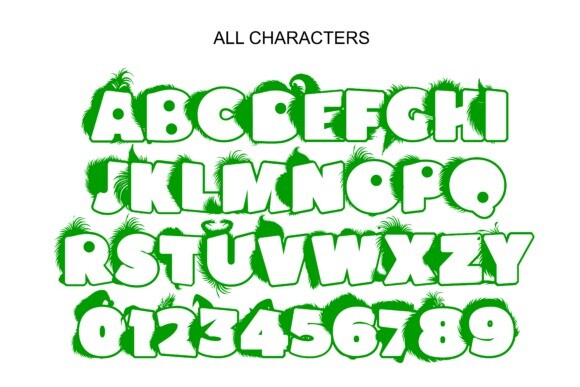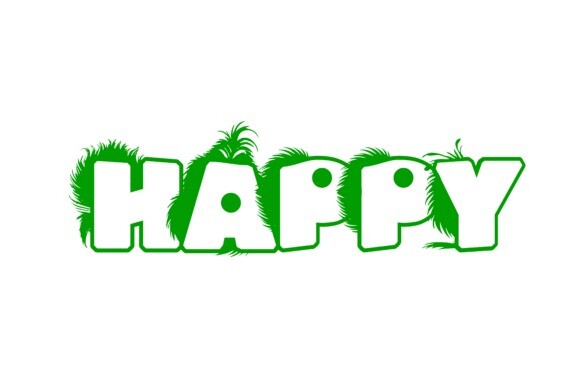
Grinch Font
Grinch Font – a breath of fresh air in the realm of theme fonts. Let yourself be drawn into the captivating charm of Grinch, a modern typeface that breathes life with its lively essence. This typographic wonder serves as a testament to innovation, designed to enhance a wide range of artistic ventures dramatically. With its standout personality, Grinch injects a surge of dynamism into your creative endeavors. Unlock new heights of creative expression with the vivacious, unique verve of the Grinch font.